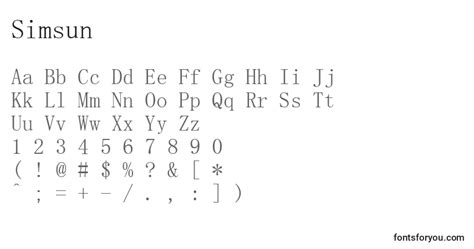
SimSun Regular truetype font
Web simsun regular is a regular truetype font. Web download the simsun font for free in ttf format compatible with windows and mac. 1 users have given the font a rating of 4.0 out of 5. A simplified chinese font in mincho (serif) stroke style. Made by beijing zhongyi electronics co.,. It has been downloaded 100 times.
A simplified chinese font in mincho (serif) stroke style. It has been downloaded 100 times. Web simsun regular is a regular truetype font. 1 users have given the font a rating of 4.0 out of 5. Web download the simsun font for free in ttf format compatible with windows and mac. Made by beijing zhongyi electronics co.,. A simplified chinese font in mincho (serif) stroke style.